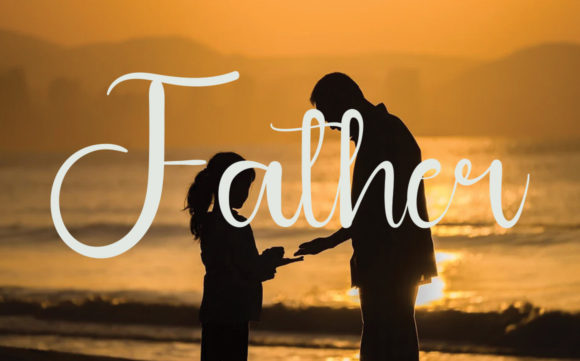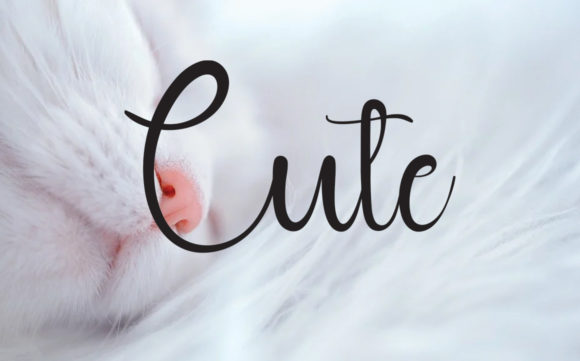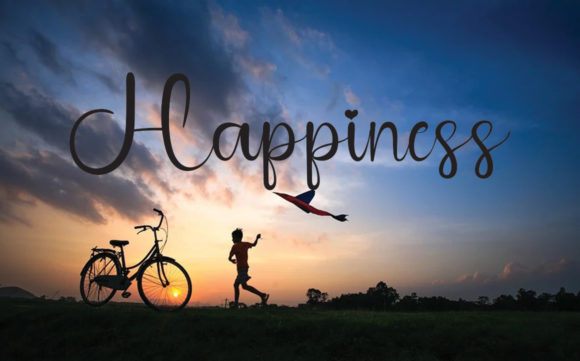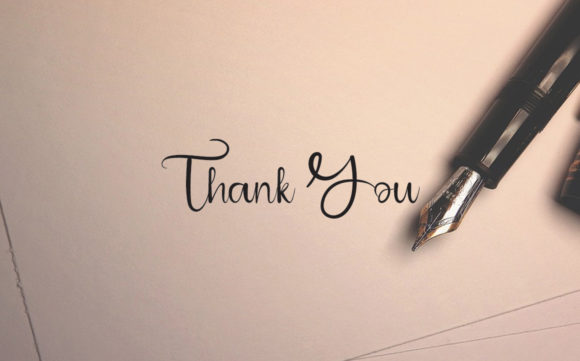
The Ultimate Grinch Day Font Guide: Elevate Your Designs with this Modern Handwritten Gem
I’ll never forget the time I was working on a wedding invitation project, and my client asked for a font that was both elegant and playful. I scoured the internet, trying out font after font, but nothing seemed quite right. That was until I stumbled upon the Grinch Day Font. ✨ It was love at first sight! The beautifully flowing and modern handwritten script instantly captured the essence of the wedding’s theme, and my client was thrilled. In this article, I’ll share my experience with the Grinch Day Font, its features, and how to make the most of it in your designs.
An Honest Review of Grinch Day Font
- ✨ Beautifully flowing and modern handwritten script
- ✅ Highly versatile and suitable for various design projects
- ✅ Easy to read and understand, even at small font sizes
- ✅ Extensive range of OpenType features, glyphs, and stylistic alternates
While the Grinch Day Font is an excellent choice for many design projects, there are a few minor quirks to be aware of:
- ⚠️ Some users may find the font’s script style too casual for formal projects
- 🤔 Limited availability of font weights, which may not be suitable for designs requiring a high level of hierarchy
A Practical Guide to Using Grinch Day Font
The Story Behind Grinch Day Font
The Grinch Day Font was designed with the intention of creating a beautiful, flowing script that captures the essence of modern handwriting. The designer aimed to create a font that is both elegant and playful, making it suitable for a wide range of design projects. The result is a stunning font that adds a touch of sophistication and whimsy to any design.
Q: What type of projects is the Grinch Day Font suitable for?
A: The Grinch Day Font is highly versatile and suitable for various design projects, including wall displays, wedding invitations, social media posts, logos, advertisements, product packaging, product designs, labels, photography, watermarks, invitations, stationery, and more.
Q: Is the Grinch Day Font easy to read?
A: Yes, the Grinch Day Font is designed to be easy to read and understand, even at small font sizes.